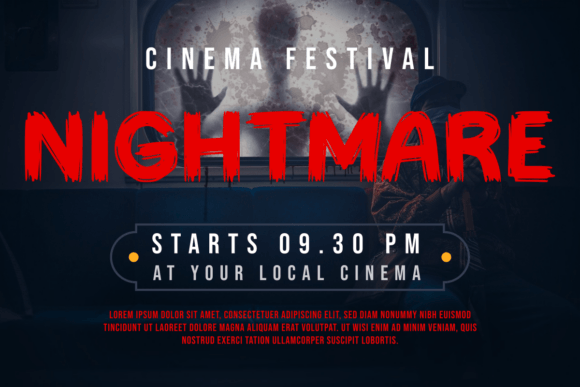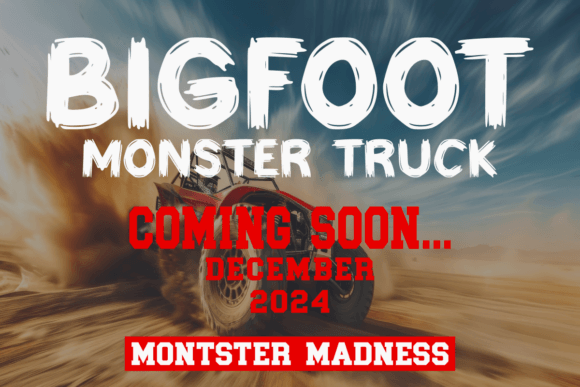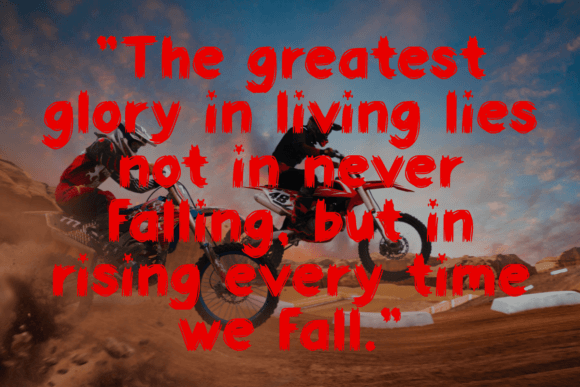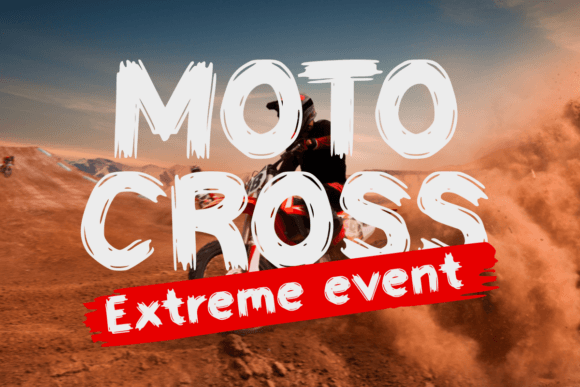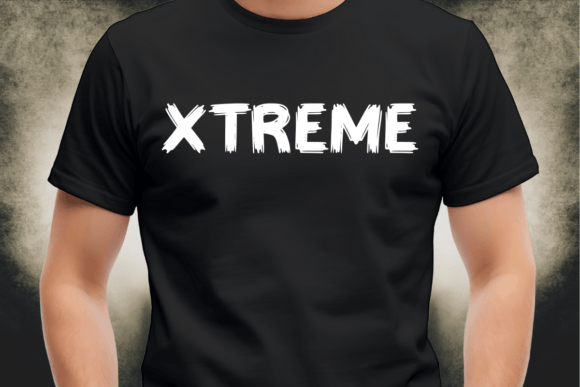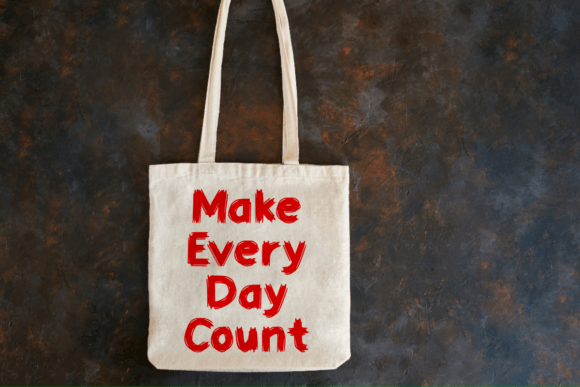
Introduction to Horror Comedy Font
Horror Comedy font a Horror Halloween font.
It will look fantastic on all your project designs including t-shirt designs, mug designs, digital designs, crafts, cards, and any projects .
Key Features of Horror Comedy Font